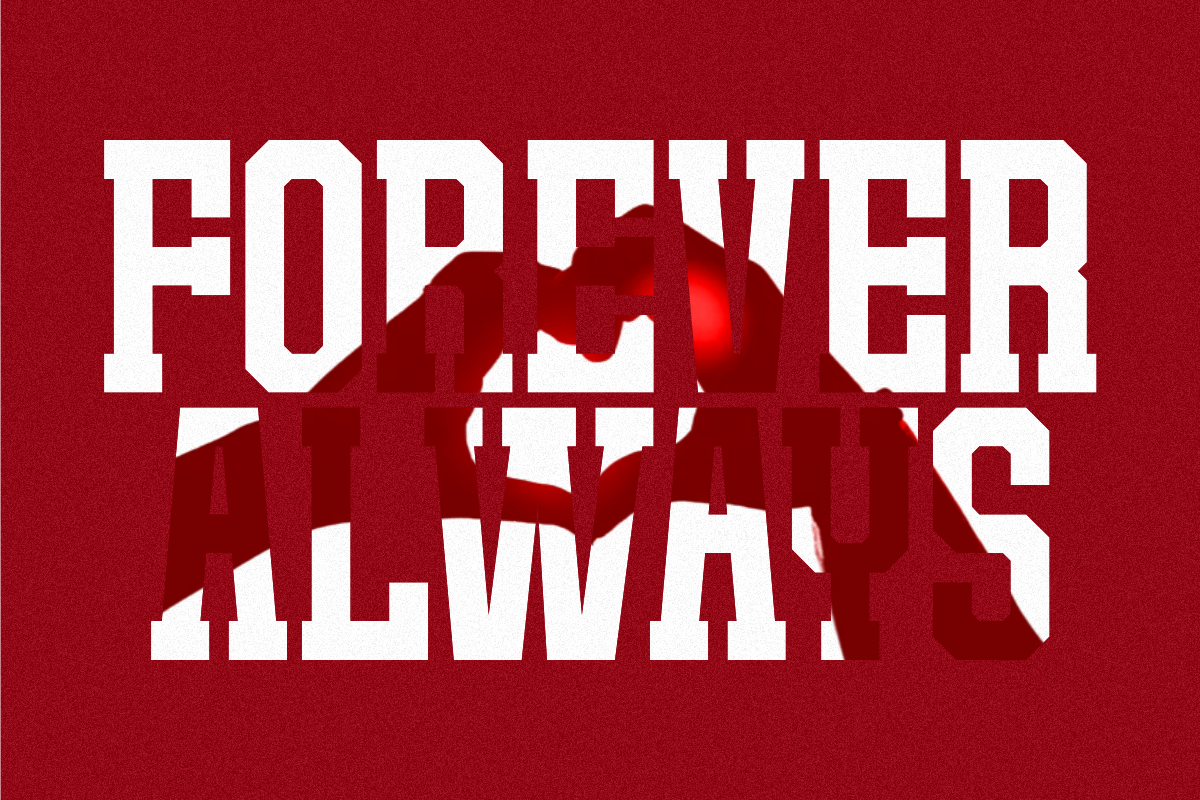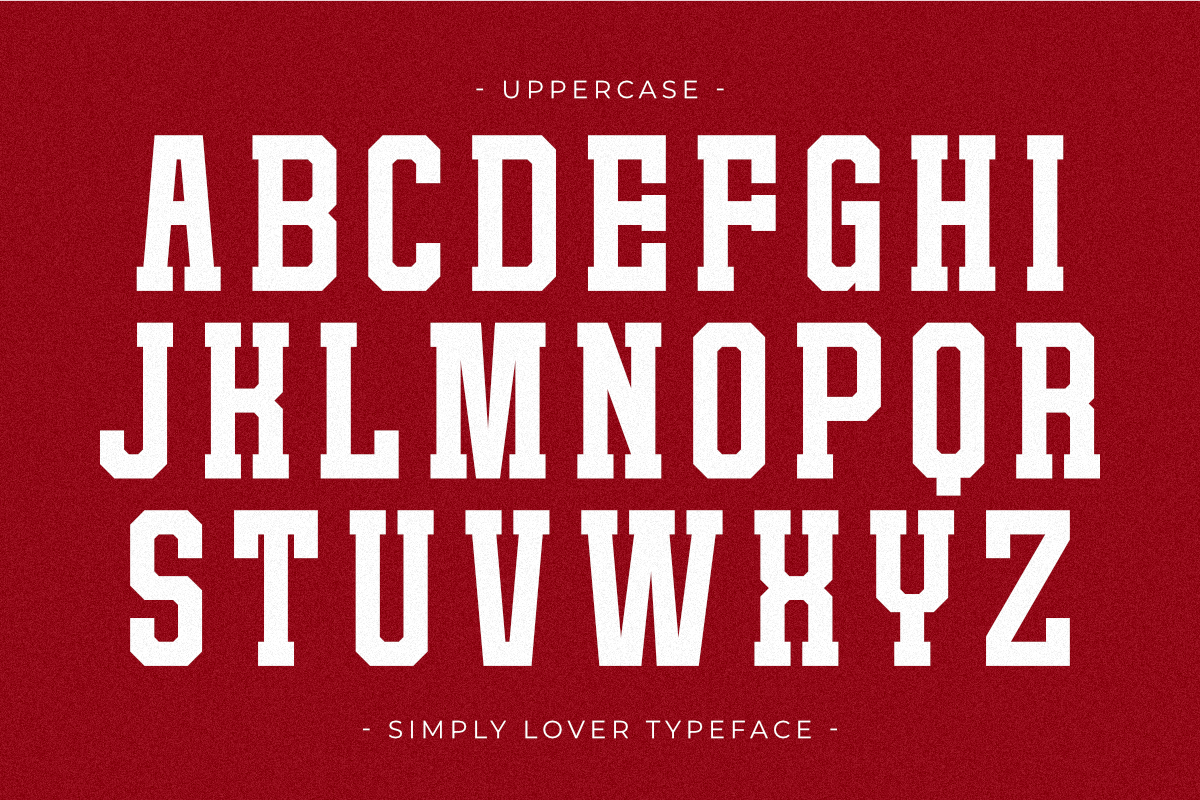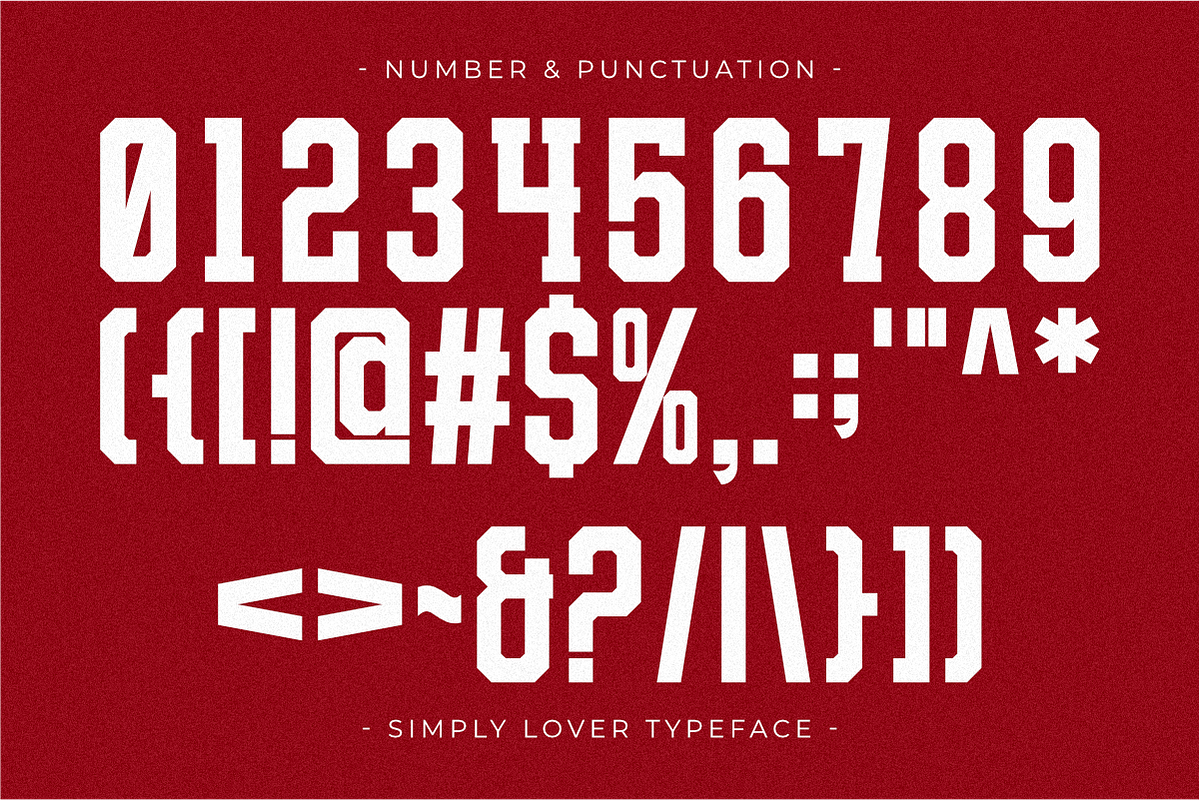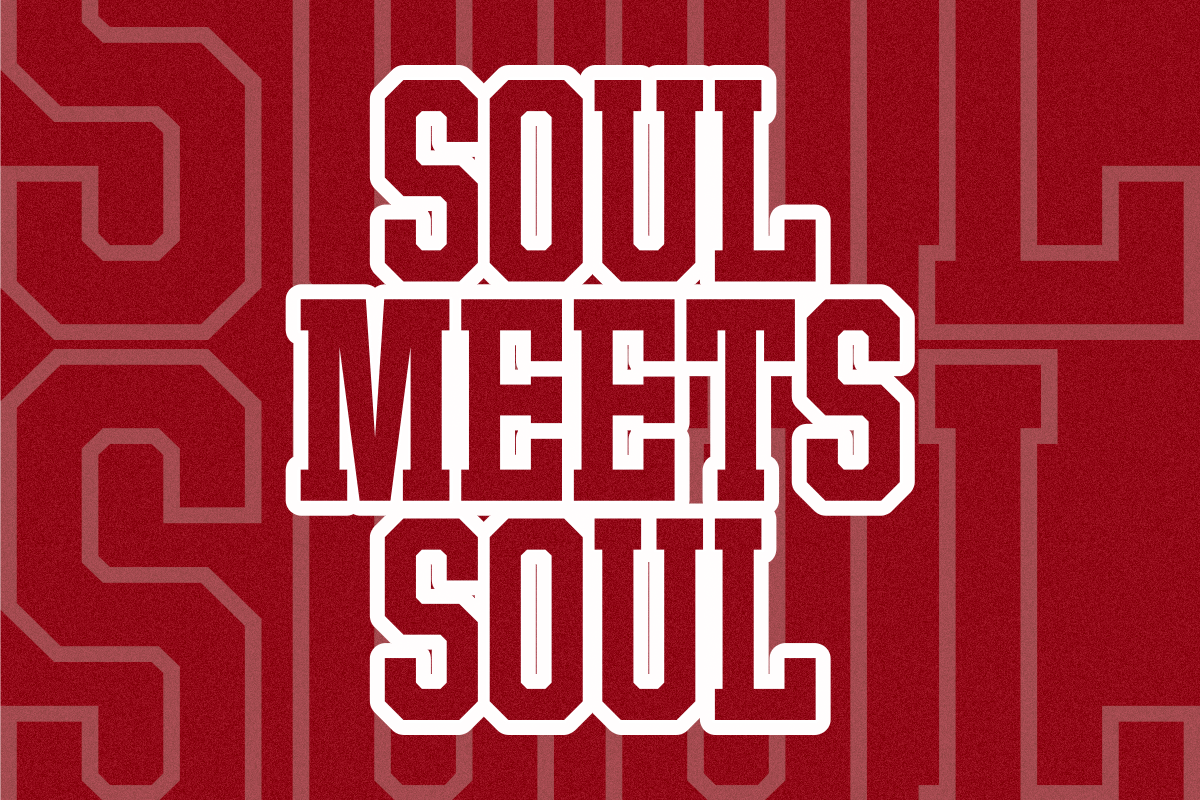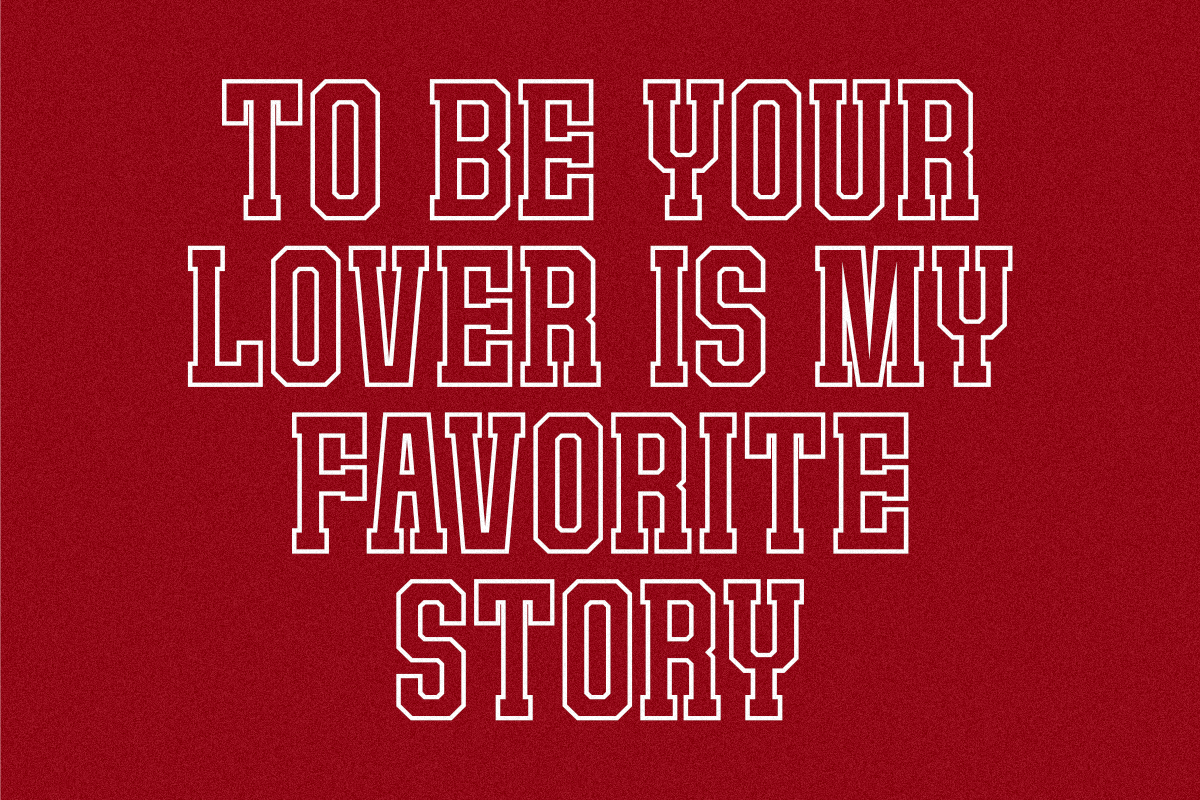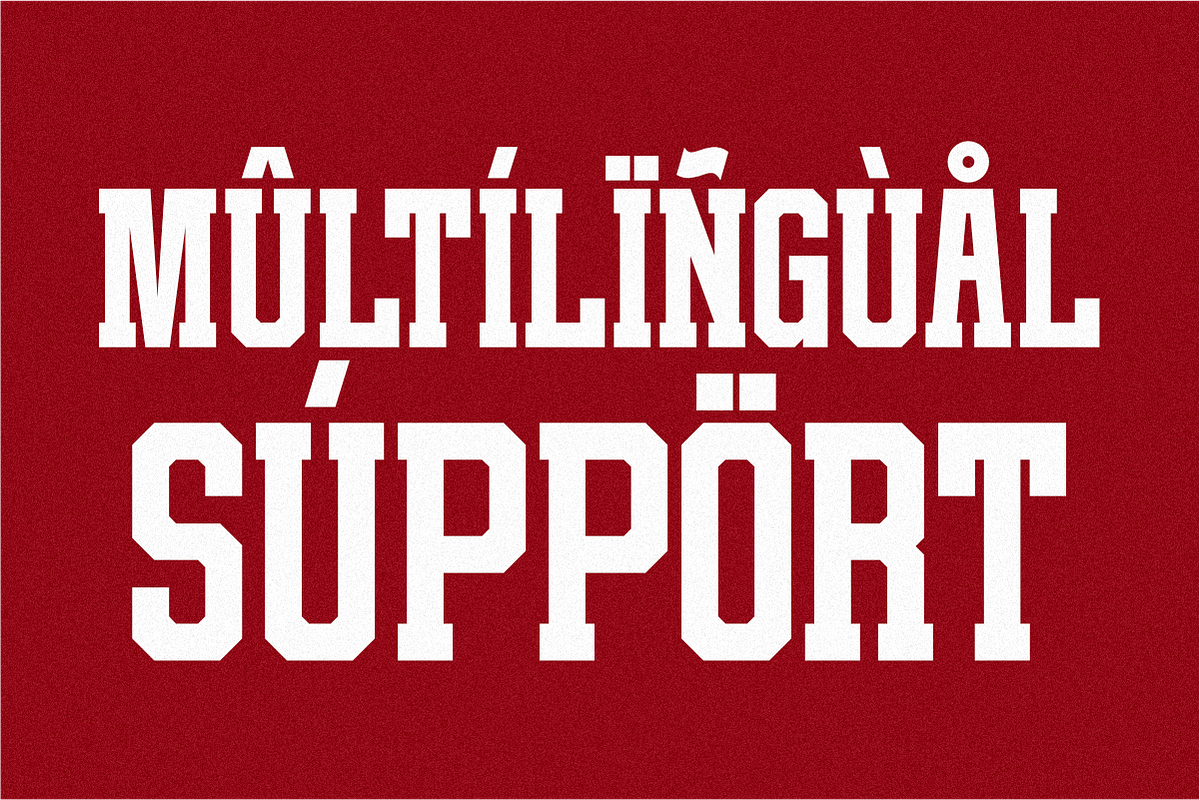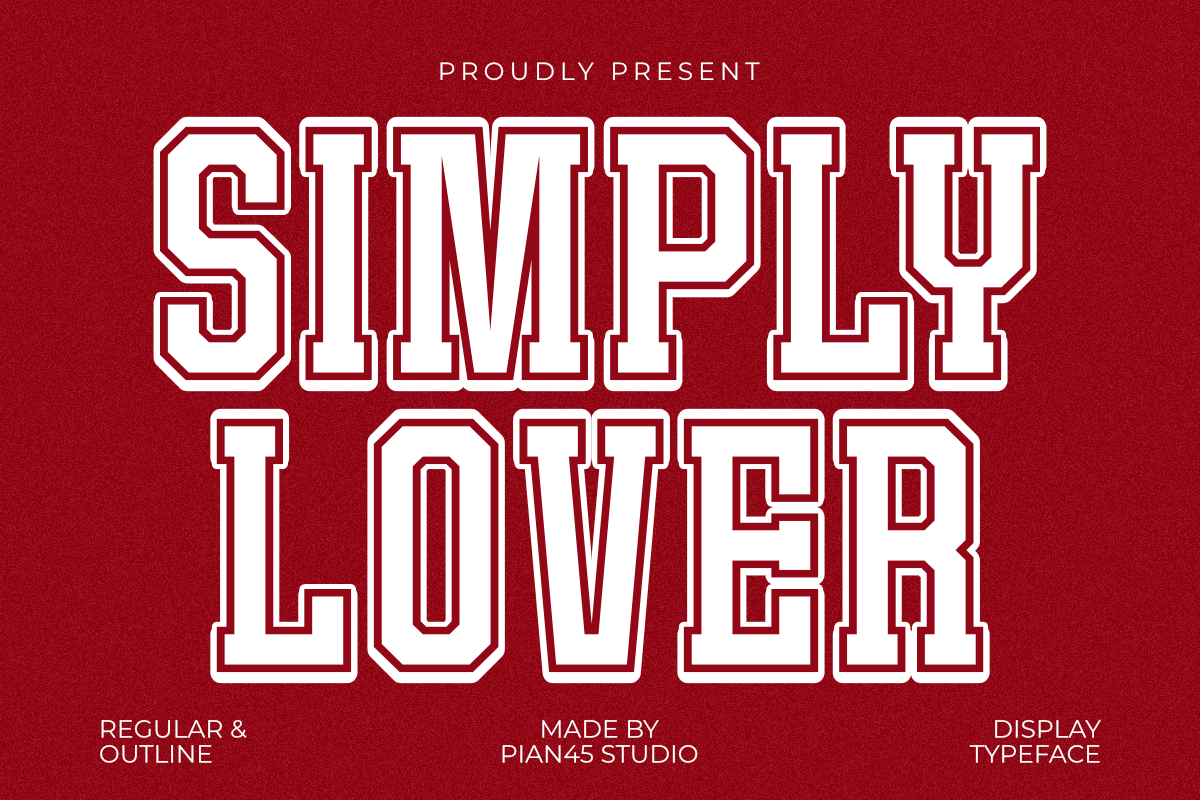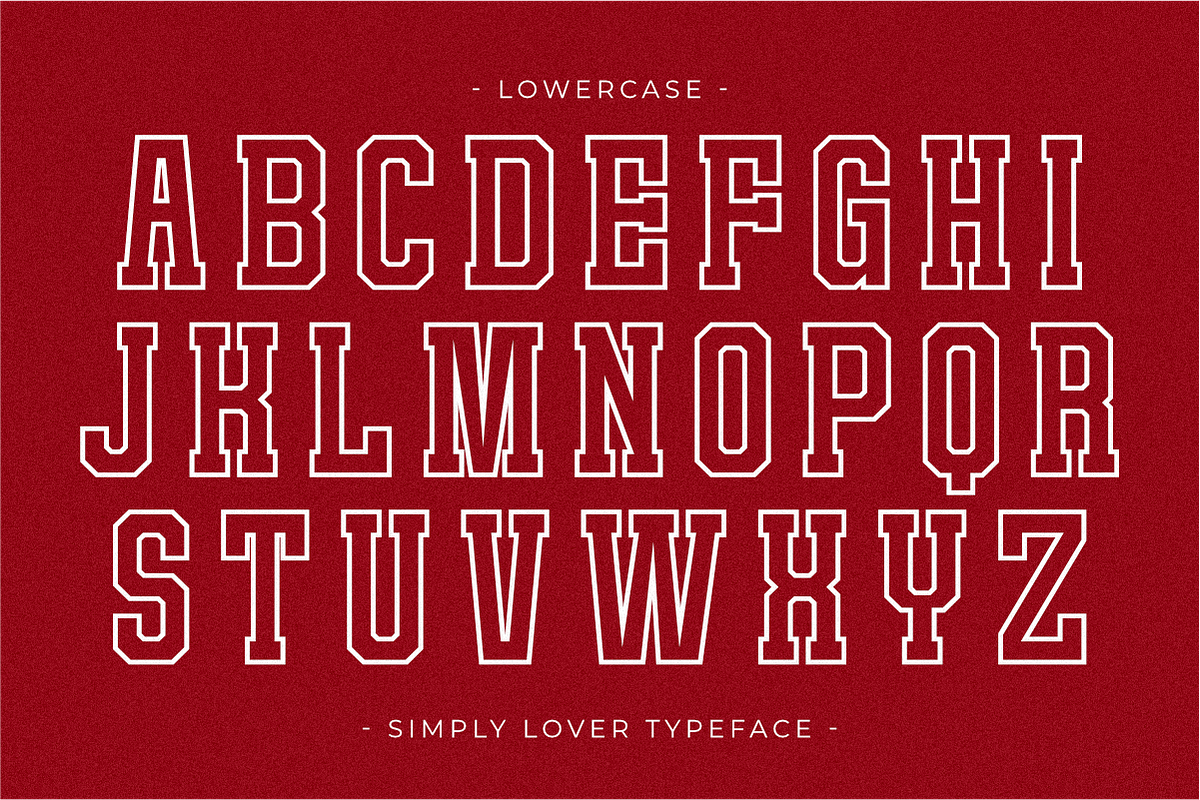
Simply Lover - Display Typeface
Simply Lover is a bold and romantic Display Typeface designed to bring a passionate energy to your Valentine's Day projects. Featuring both Regular and Outline styles for perfect layering, this collegiate-inspired font is ideal for romantic apparel, wedding branding, love-themed greeting cards, and high-impact headlines. Its clean, blocky structure combined with a modern aesthetic makes it a versatile choice for merchandise and social media graphics that need a strong yet affectionate visual presence.